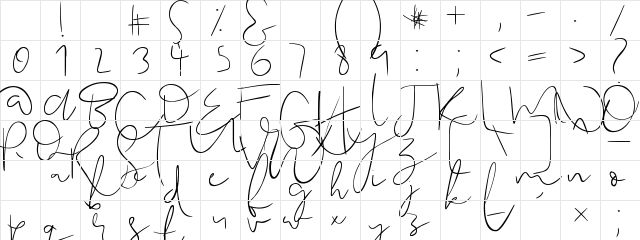
Passionfruits Regular Free Font
Passionfruits Regular
Design Context for Passionfruits
Passionfruits is a composed and adaptable typeface that performs quietly and consistently across a wide range of design contexts.